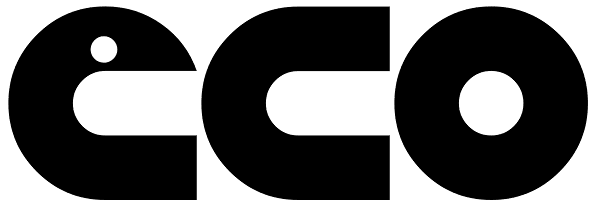
Eco
Eco is a personal development of the lettering used in a 1970s logo of a little known company named Ageco. The only letters faithful to the logo's ones are E, C and O.
Eco Font